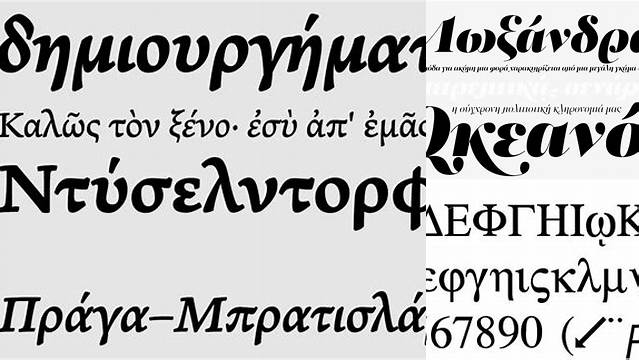
Hey guys! Ever wanted to give your designs that authentic, ancient Greek vibe? Or maybe you’re working on a history project and need some cool, handwritten-style Greek fonts? Well, you've come to the right place! In this article, we're diving deep into the world of Greek fonts handwriting free download. We’ll explore where to find them, how to use them, and even touch on the history behind them. So, grab your virtual pen and let’s get started!
Exploring Authentic Greek Script Fonts
Authentic Greek script fonts are more than just a way to write in Greek; they're a connection to a rich cultural heritage. The Greek alphabet, with its elegant curves and distinctive letterforms, has influenced countless writing systems around the world. When you're looking for Greek fonts handwriting free download, you're essentially seeking a piece of history that you can incorporate into your modern designs. Think about the impact of using a font that echoes the scripts used by philosophers, mathematicians, and playwrights of ancient Greece. It adds a layer of depth and sophistication that a standard font simply can't match. These fonts often mimic the natural flow of handwriting, making them perfect for adding a personal touch to invitations, posters, and digital art. Choosing the right authentic Greek script font can transform your project, giving it a unique and timeless appeal.
Using Greek Handwriting Fonts in Design Projects
Okay, you've got your Greek handwriting fonts, they're installed, and you're ready to rock. But how do you actually use them effectively in your design projects? First off, consider the overall tone and style of your design. A handwritten Greek font can add a touch of authenticity and elegance, but it needs to fit the context. For example, if you're designing a poster for a historical event, a Greek handwriting font can be perfect for headings or quotes. If you're working on a modern, minimalist design, use it sparingly to add a unique accent. Think about the readability of the font as well. Some handwritten fonts can be difficult to read, especially in smaller sizes, so choose a font that strikes a balance between style and clarity. Experiment with different sizes, colors, and spacing to see what works best. Also, consider pairing your Greek handwriting font with a more standard font for the body text to ensure readability. With a little creativity, you can use Greek fonts handwriting free download to elevate your design projects and give them a distinctive, memorable look.
Tips for Choosing the Right Greek Font Style
Choosing the right Greek font style can make or break your project. With so many options available, it's essential to consider a few key factors. First, think about the purpose of your project. Are you creating a formal invitation, a casual poster, or a scholarly article? The font you choose should align with the overall tone and message. Look at the different styles of Greek handwriting fonts available. Some are more formal and elegant, while others are more playful and whimsical. Pay attention to the details of the font, such as the thickness of the lines, the curves of the letters, and the overall texture. Readability is another crucial factor. While a fancy font might look great, it's useless if people can't read it. Test the font in different sizes and contexts to ensure it's legible. Also, consider the cultural accuracy of the font. Some fonts might claim to be Greek but don't accurately reflect the historical styles of Greek handwriting. Doing a little research can help you choose a font that is both aesthetically pleasing and culturally appropriate. By keeping these tips in mind, you can confidently select the perfect Greek fonts handwriting free download for your needs.
Understanding the History of Greek Handwriting
To truly appreciate Greek handwriting fonts, it's helpful to understand the history behind them. The Greek alphabet is one of the oldest in the world, dating back to around the 8th century BC. It evolved from the Phoenician alphabet and has since influenced many other writing systems, including the Latin alphabet that we use today. Early Greek handwriting was characterized by its elegant, flowing lines and its use of uppercase letters. Over time, lowercase letters developed, and different styles of handwriting emerged, such as cursive and uncial. Each style had its own unique characteristics and was used for different purposes. Understanding these historical styles can give you a deeper appreciation for the Greek fonts handwriting free download that you use today. It can also help you choose fonts that are historically accurate and appropriate for your projects. So, take a moment to learn about the rich history of Greek handwriting, and you'll be able to use your fonts with greater knowledge and confidence.
Creating a Greek-Themed Design with Free Fonts
Creating a Greek-themed design with free fonts can be a fun and rewarding experience. Whether you're working on a website, a poster, or a social media graphic, incorporating Greek elements can add a touch of elegance and sophistication. Start by choosing a color palette that reflects the colors of Greece, such as blues, whites, and golds. Use Greek-inspired imagery, such as ancient ruins, olive branches, and laurel wreaths, to create a visual theme. Then, select a Greek handwriting font that complements your design. Use it for headings, quotes, or other key elements to add a personal touch. Pay attention to the overall balance and composition of your design. Avoid cluttering the space with too many elements, and make sure everything is visually appealing. Consider adding subtle details, such as Greek key patterns or meander designs, to enhance the theme. With a little creativity and attention to detail, you can create a stunning Greek-themed design using free fonts and resources.
Mixing Greek Fonts with Modern Typography
Mixing Greek fonts with modern typography can create a striking and unique visual effect. When done well, it can add a touch of history and elegance to your designs while maintaining a contemporary feel. The key is to find the right balance between the ancient and the modern. Start by choosing a modern font that complements your Greek handwriting font. A clean, sans-serif font can work well, as it provides a contrast to the more ornate Greek font. Use the Greek font sparingly, perhaps for headings or short quotes, and use the modern font for the body text. Pay attention to the kerning and spacing of the fonts to ensure they work well together. Experiment with different sizes and weights to see what looks best. Consider using color to differentiate the fonts and create visual interest. By carefully mixing Greek fonts with modern typography, you can create designs that are both timeless and contemporary.
Free Greek Fonts for Commercial Use: What to Know
When you're looking for free Greek fonts for commercial use, there are a few important things to keep in mind. Not all free fonts are created equal, and some may have restrictions on how you can use them. Before downloading a font, always check the licensing terms to make sure it's suitable for your project. Some fonts are free for personal use only, while others are free for both personal and commercial use. Pay attention to any specific requirements, such as giving credit to the font designer. Some font licenses require you to include a statement acknowledging the font's creator. Be wary of fonts that are offered for free without any clear licensing information. These fonts may be pirated or otherwise illegal to use. Stick to reputable font websites that provide clear and accurate licensing information. By doing your due diligence, you can ensure that you're using free Greek fonts legally and ethically in your commercial projects.
Advanced Techniques for Manipulating Greek Fonts
Ready to take your Greek fonts to the next level? Let's explore some advanced techniques for manipulating them. Experiment with different font weights and styles to create visual hierarchy and emphasis. Use font editing software to customize the letterforms and add unique design elements. Create custom ligatures to combine letters in interesting ways. Apply text effects, such as shadows, gradients, and textures, to add depth and dimension to your typography. Use clipping masks to create interesting shapes and patterns with your text. Combine Greek fonts with other design elements, such as images and illustrations, to create visually compelling compositions. By mastering these advanced techniques, you can unlock the full potential of Greek fonts and create truly stunning designs.